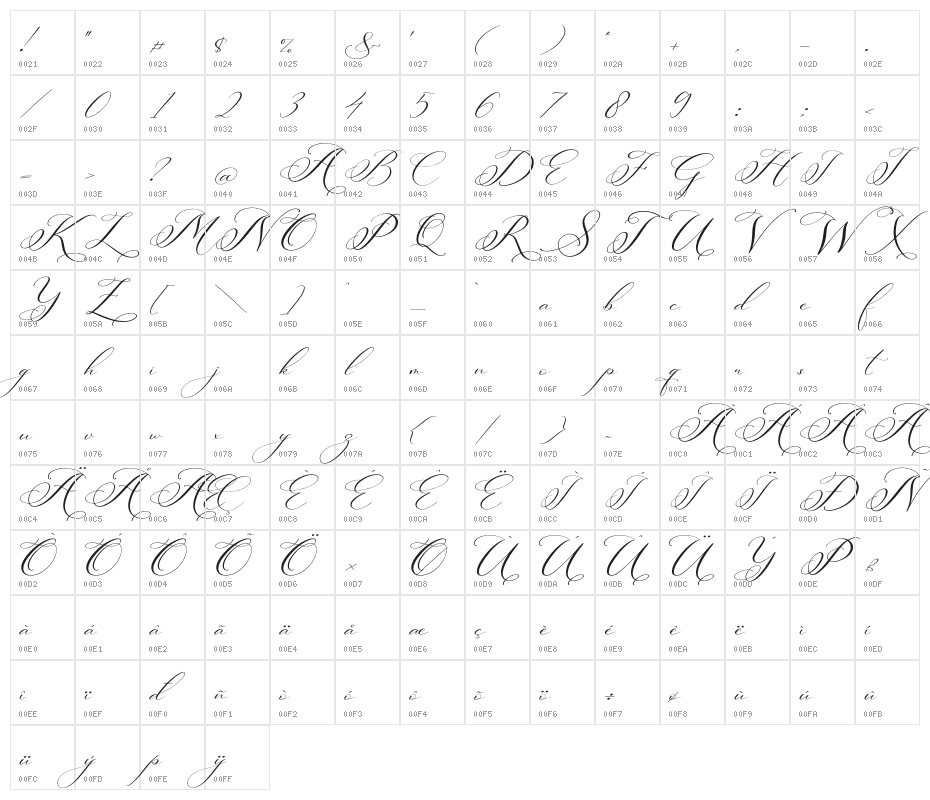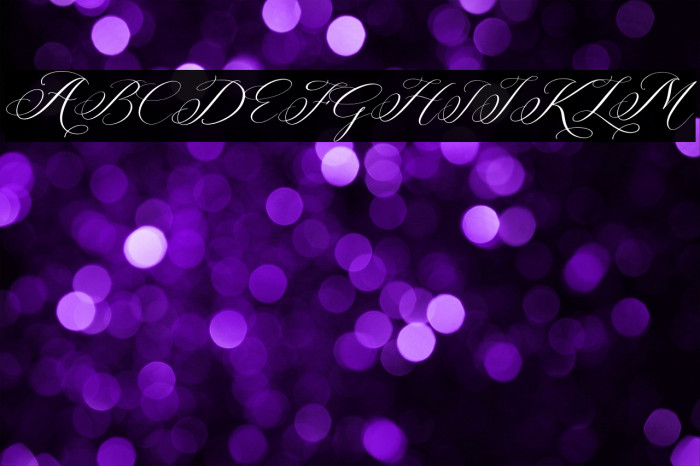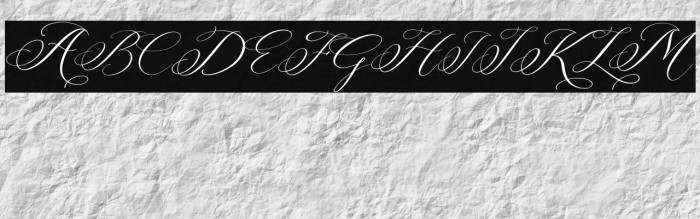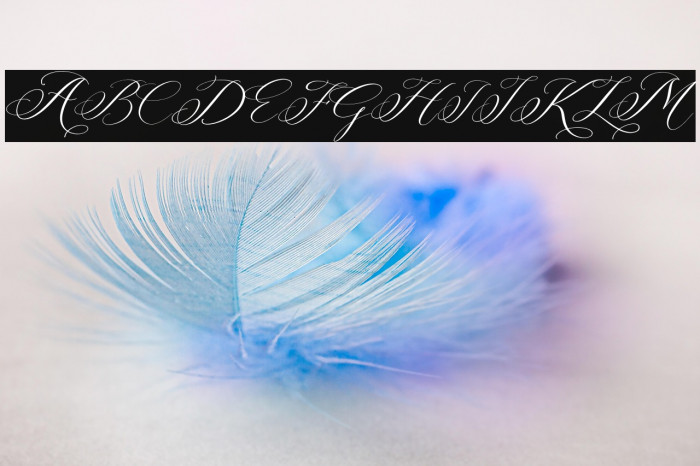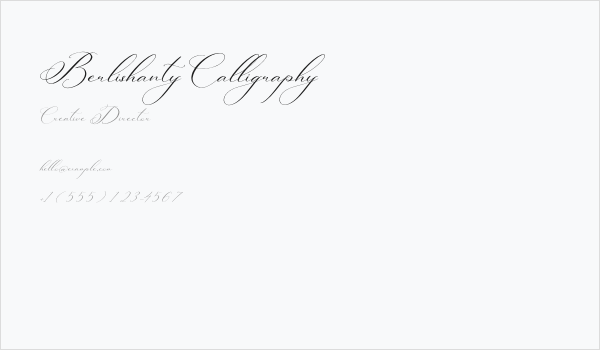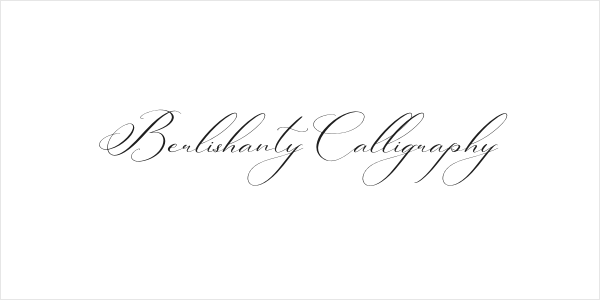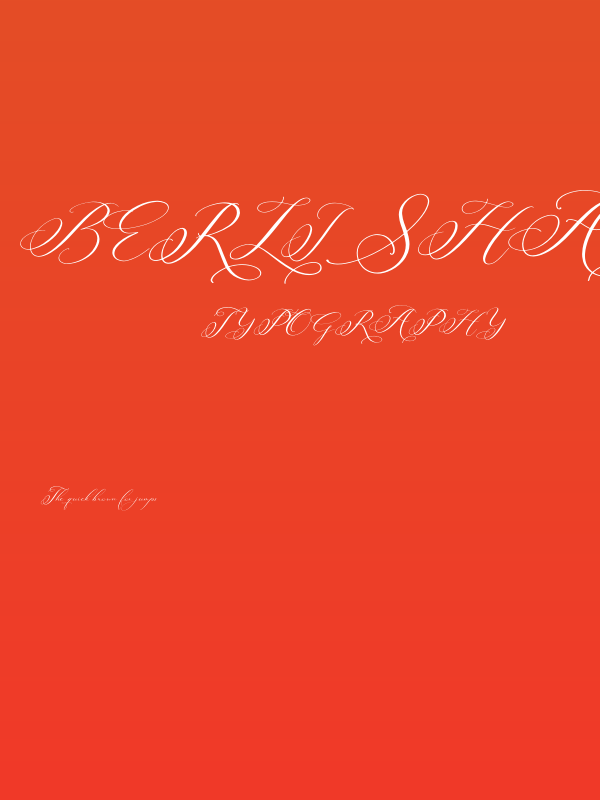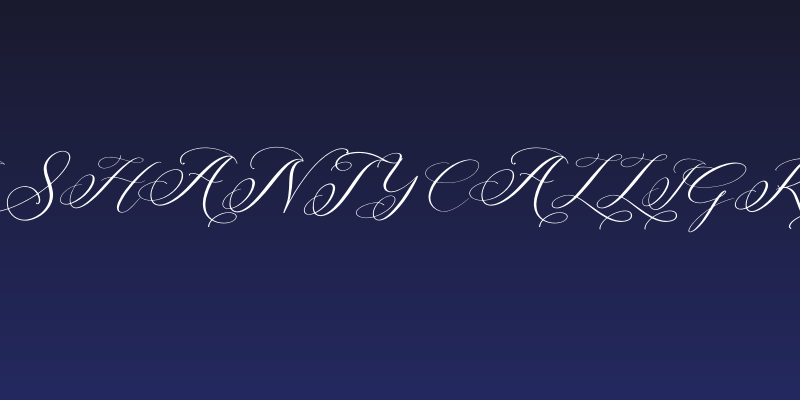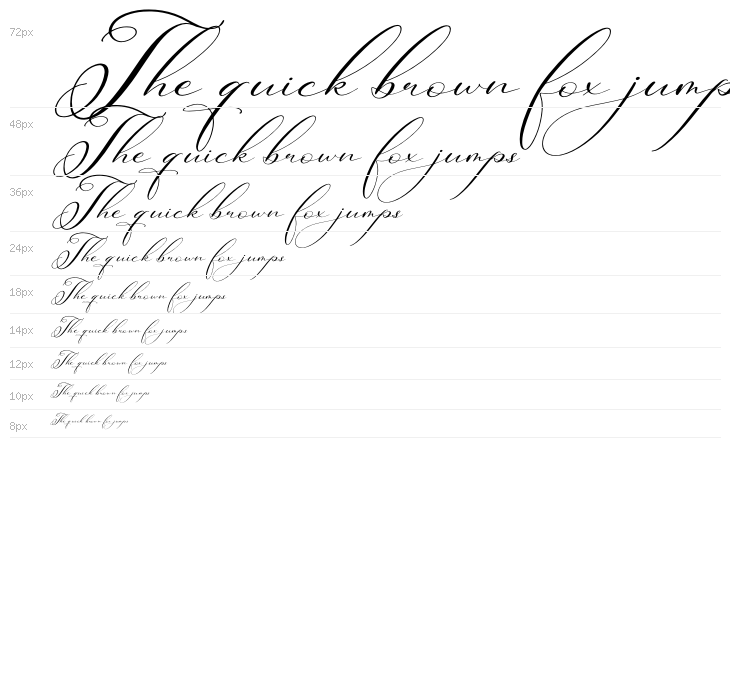
Berlishanty Calligraphy Font
Berlishanty Calligraphy Description
This elegant calligraphy style font features intricate and flowing letterforms that exude sophistication and grace. The uppercase letters are adorned with delicate swirls and loops, creating a sense of movement and fluidity. The lowercase letters maintain a consistent flow, with elongated ascenders and descenders that add to the font's ornate appearance. The numerals are designed with a similar flair, ensuring a cohesive look across all characters. Special characters are thoughtfully integrated, maintaining the overall aesthetic. This font is perfect for projects that require a touch of elegance and refinement.
| Proposed Projects | Ideal for wedding invitations, formal event programs, luxury branding, and elegant stationery design. |